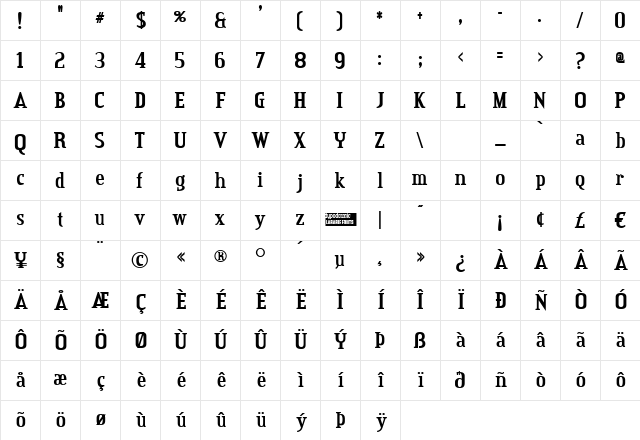
Credit Valley bold Free Font
Credit Valley bold
Design Context for Credit Valley
Credit Valley is a composed and adaptable typeface that performs quietly and consistently across a wide range of design contexts. Its bold stroke weight gives it real presence on the page.